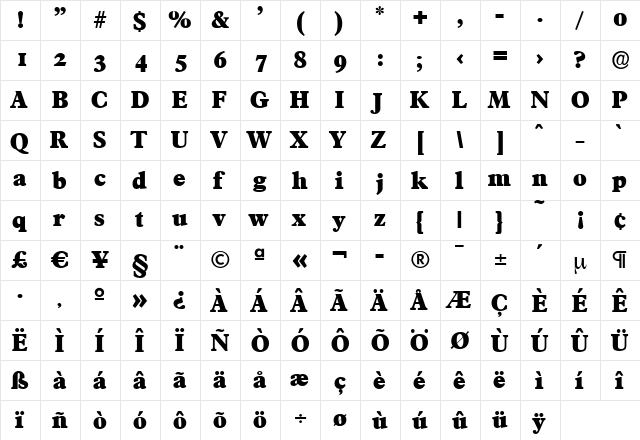
CharlesBecker-Heavy Regular Font Preview
CharlesBecker-Heavy Regular
CharlesBecker-Heavy Regular Font Details
Design Context for CharlesBecker-Heavy Typeface
CharlesBecker-Heavy is a composed and adaptable typeface that performs quietly and consistently across a wide range of design contexts.